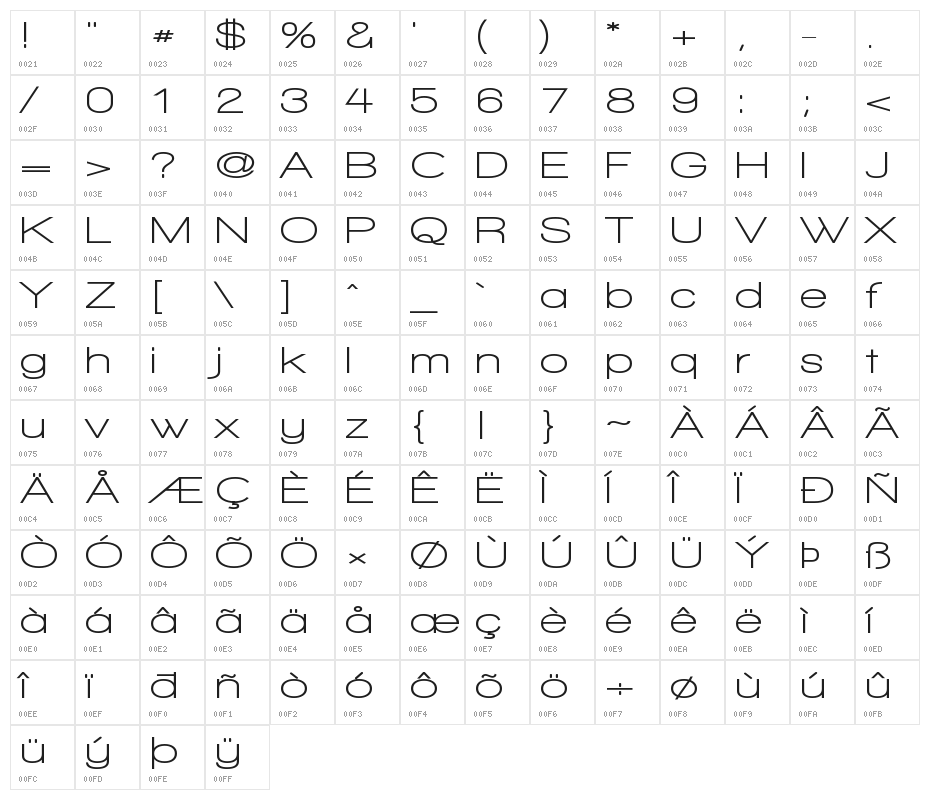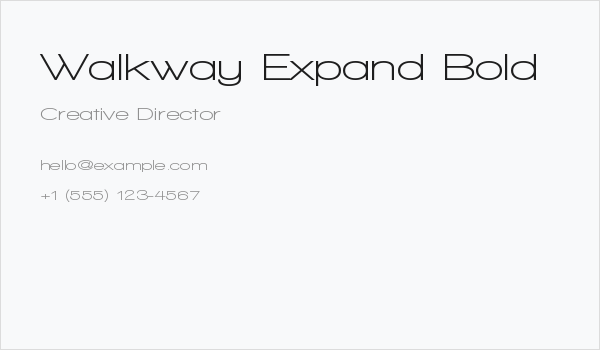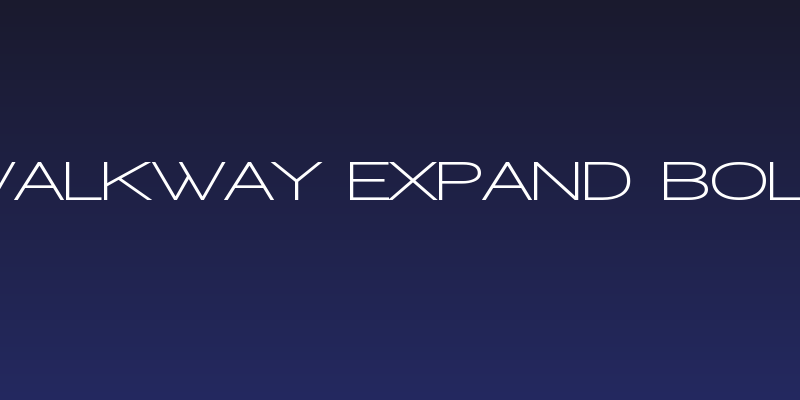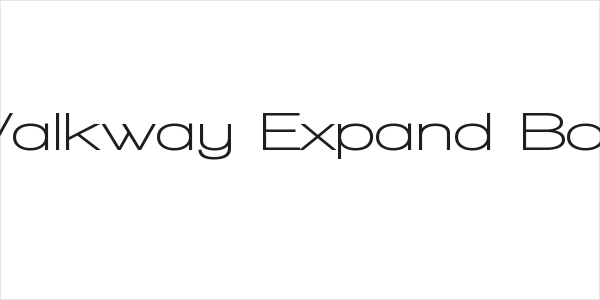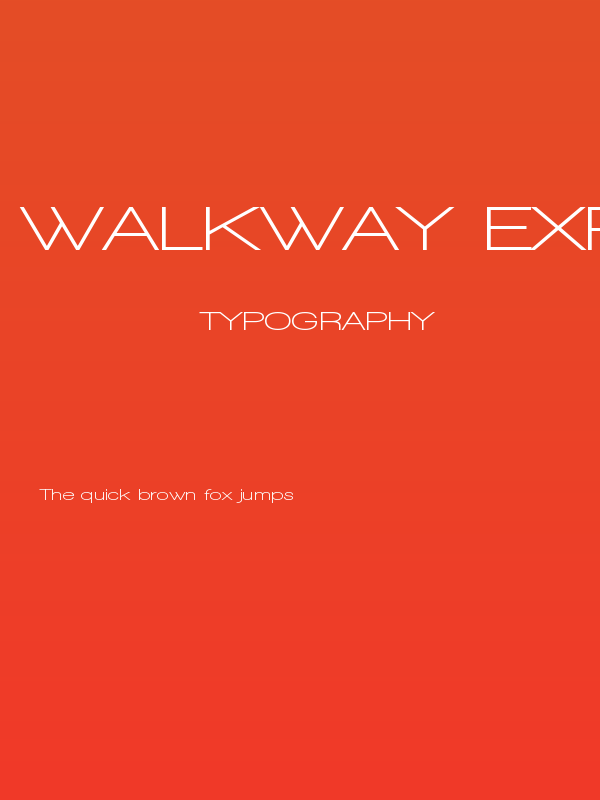
Walkway Expand Bold Font
Walkway Expand Bold Description
This font features a clean and modern sans-serif style with an expanded width, giving it a spacious and airy appearance. The characters are evenly weighted, providing a balanced and harmonious look. The design is straightforward, with smooth curves and straight lines that enhance readability. The uppercase and lowercase letters maintain a consistent height, while the numerals are clear and distinct. Special characters are well-integrated, maintaining the overall aesthetic. This font is versatile, suitable for both digital and print media, offering a professional and contemporary feel.
| Proposed Projects | Ideal for branding, advertising, web design, and editorial projects where a modern and clean look is desired. |